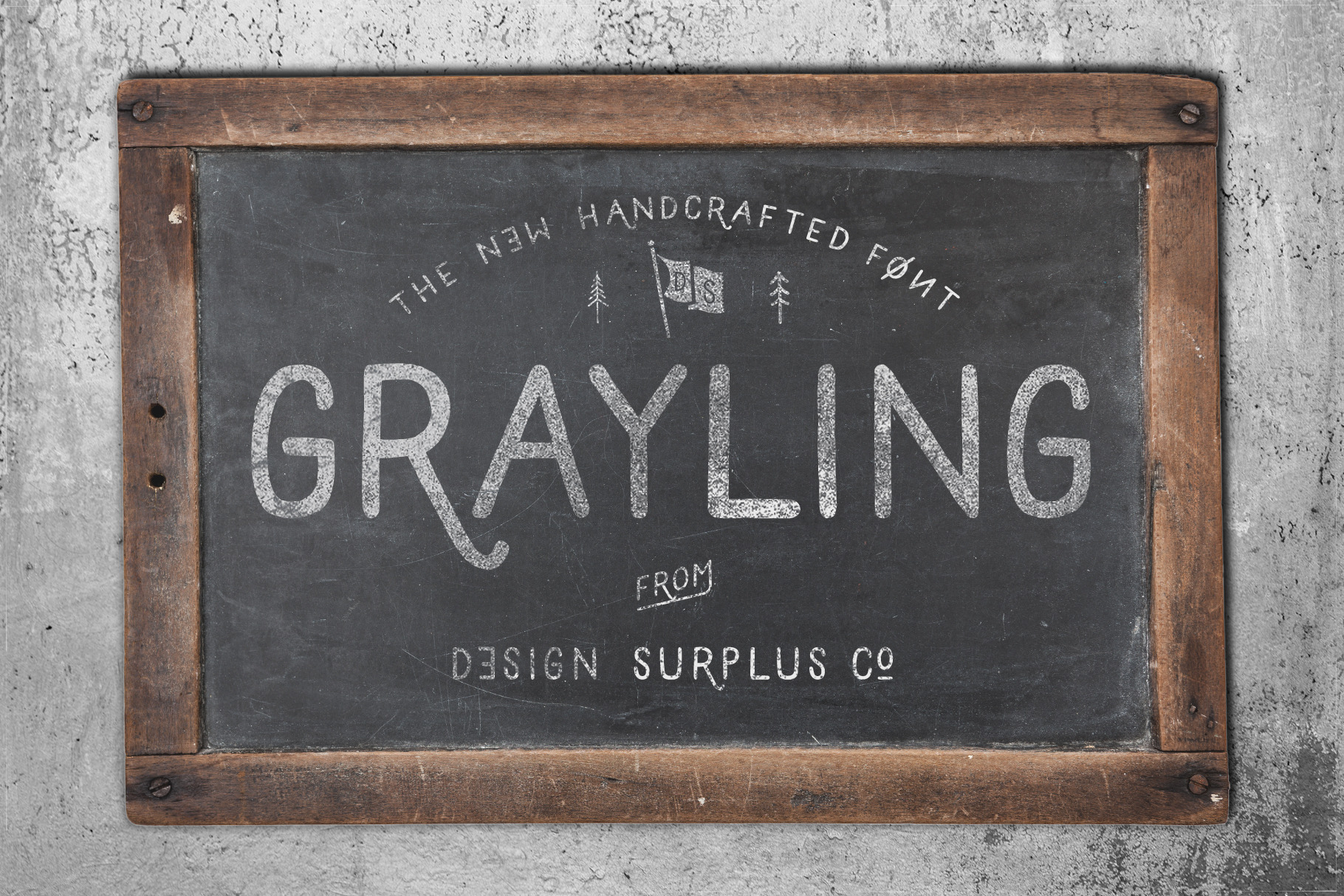
Grayling Font
Grayling is a handsome new hand drawn font from Design Surplus. I’m actually so excited to introduce it, it’s taking everything in my power not to talk in my best Bugsy Malone and shout
‘BUT WAIT…THERE’S MORE!!!’
But really, there is. I’ve packed as much as I could into this font to show off its versatility. Setting out, I wanted to create a modern minimalist font, something that would lend itself well to an industrial aesthetic, but could easily be customised to put your own brand stamp on it. So I created a range of alternate letters, company abbreviations and some cool lines to finish off your wording. Take a look at the images above, as line ending doesn't quite cut it. The font can essentially be as cool and understated or as loud and eccentric as you want to make it.
Grayling is ideal for branding projects that require a clean but hand drawn personal approach. Check out the 12 BONUS logos and 60 icons included with Grayling.
GRAYLING FEATURES
- 5 BONUS company abbreviations - see image 4 (just press keys G, H, I, J, L)
- 3 BONUS line word endings (press keys T, U, V)
- 14 alternate letters
HOT TIP: Mix and match regular and alternate letters to get the best of Grayling. Finish words off nicely with a line ending.
The glyph guide will help you navigate your way through the font and bonus extras making Grayling super easy to master.
GRAYLING USES
Looks awesome on just about anything! Take a look at the product images above to see how Grayling can be used in logo designs, posters, branding, signage and more!